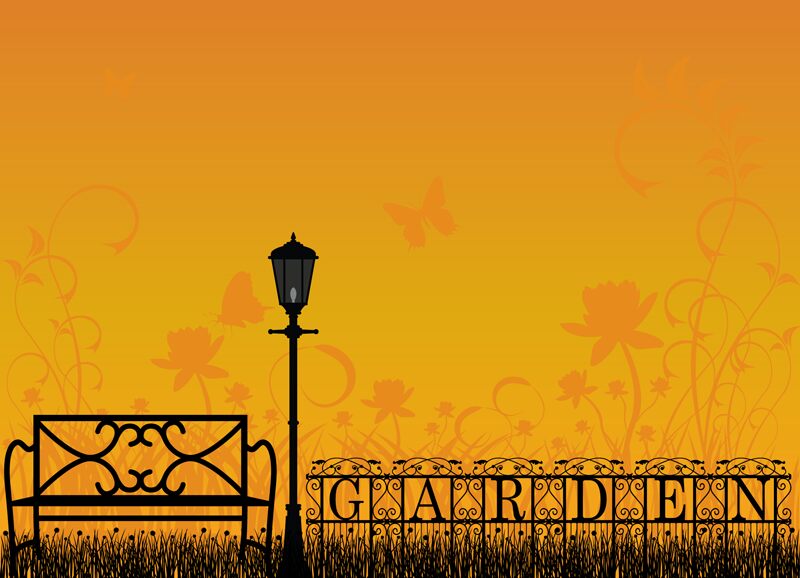
The Garden is a free fixed-width serif display font framed by elaborate wrought-iron ornament. Tall letters alternate with curling scrolls, upright bars, and pointed fence details. The contrast between formal type and dense decoration gives each character the look of a garden gate panel.
Designers working on romantic or historical themes could use it for event posters and invitation covers. It has a theatrical, enclosed appearance. In packaging and decorative signage, the repeating frames can become a continuous border rather than ordinary lettering.
The Garden